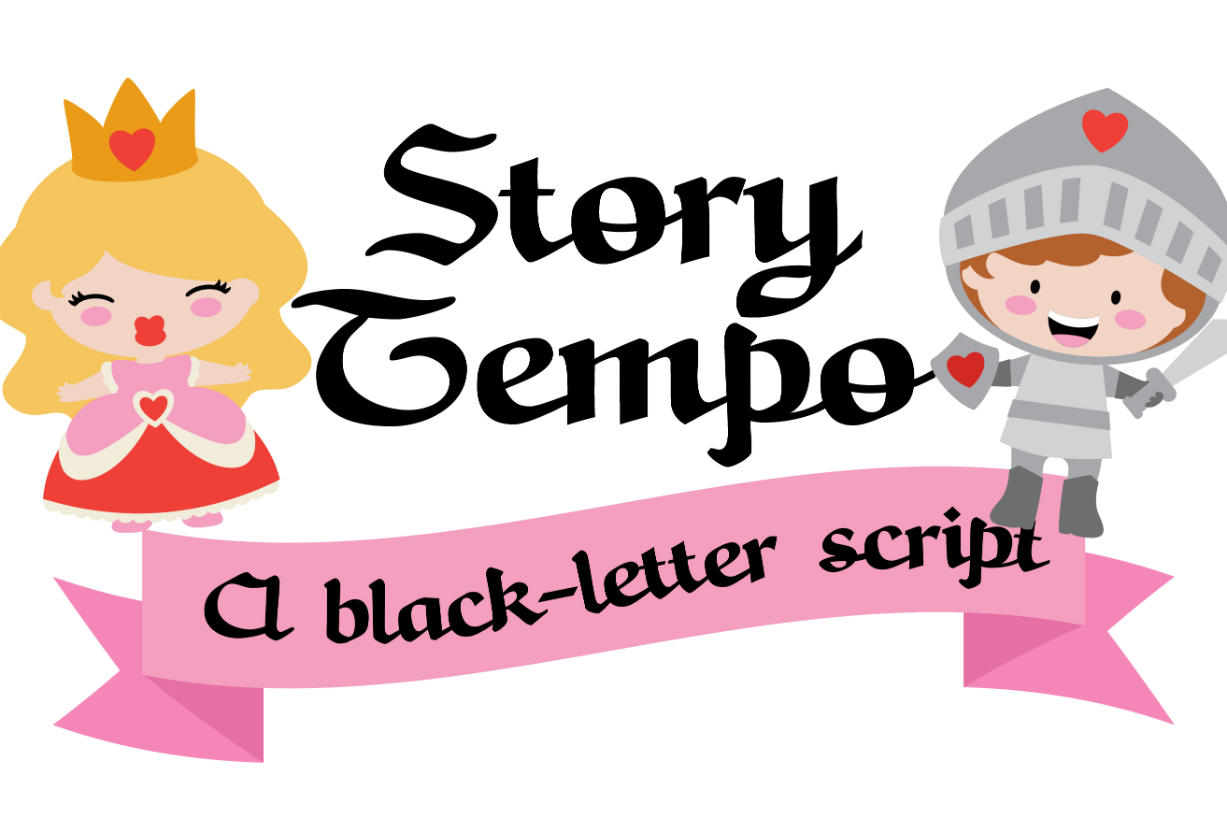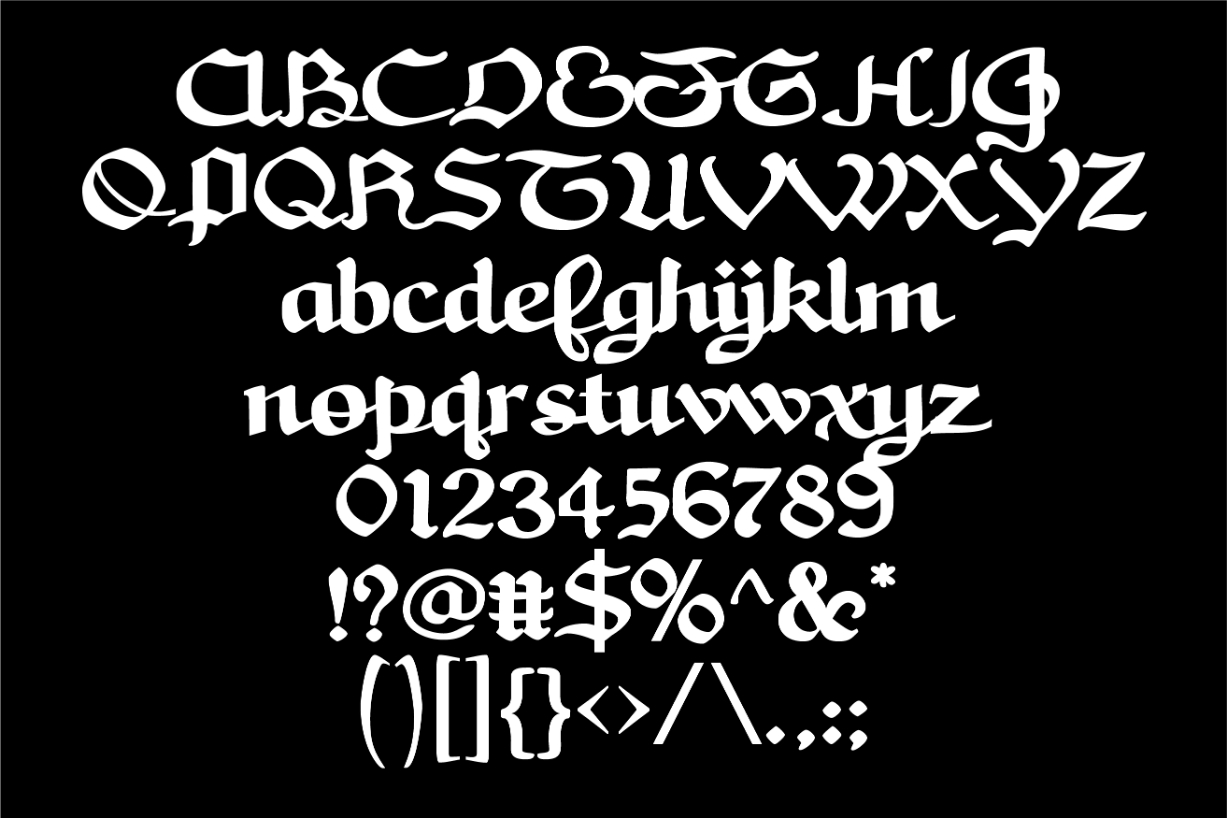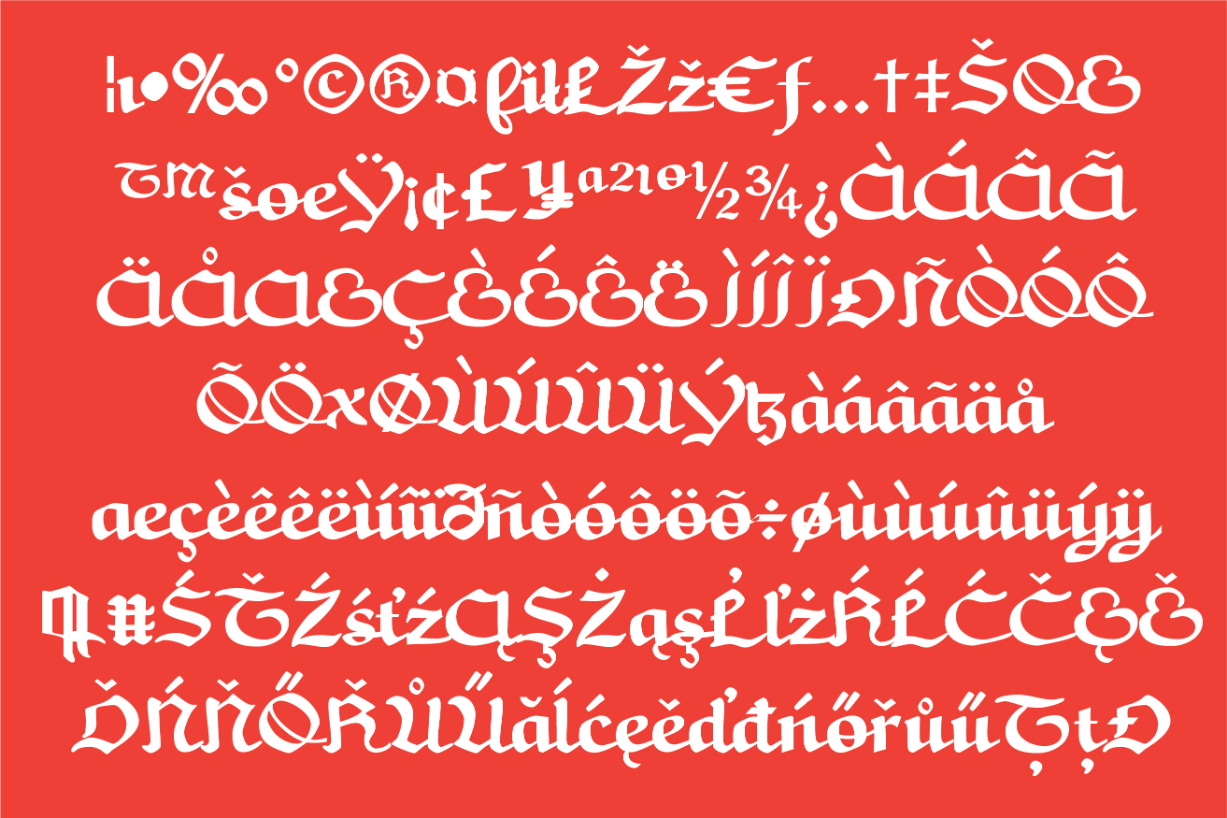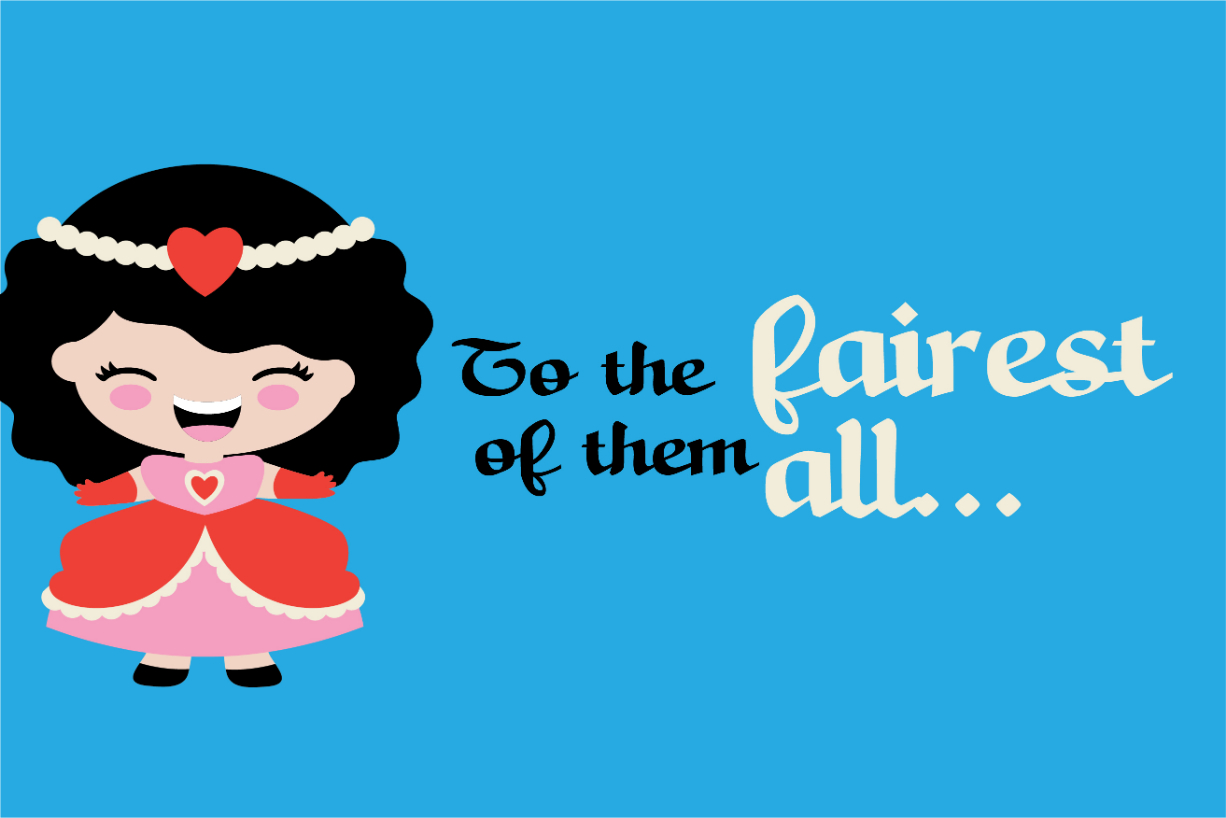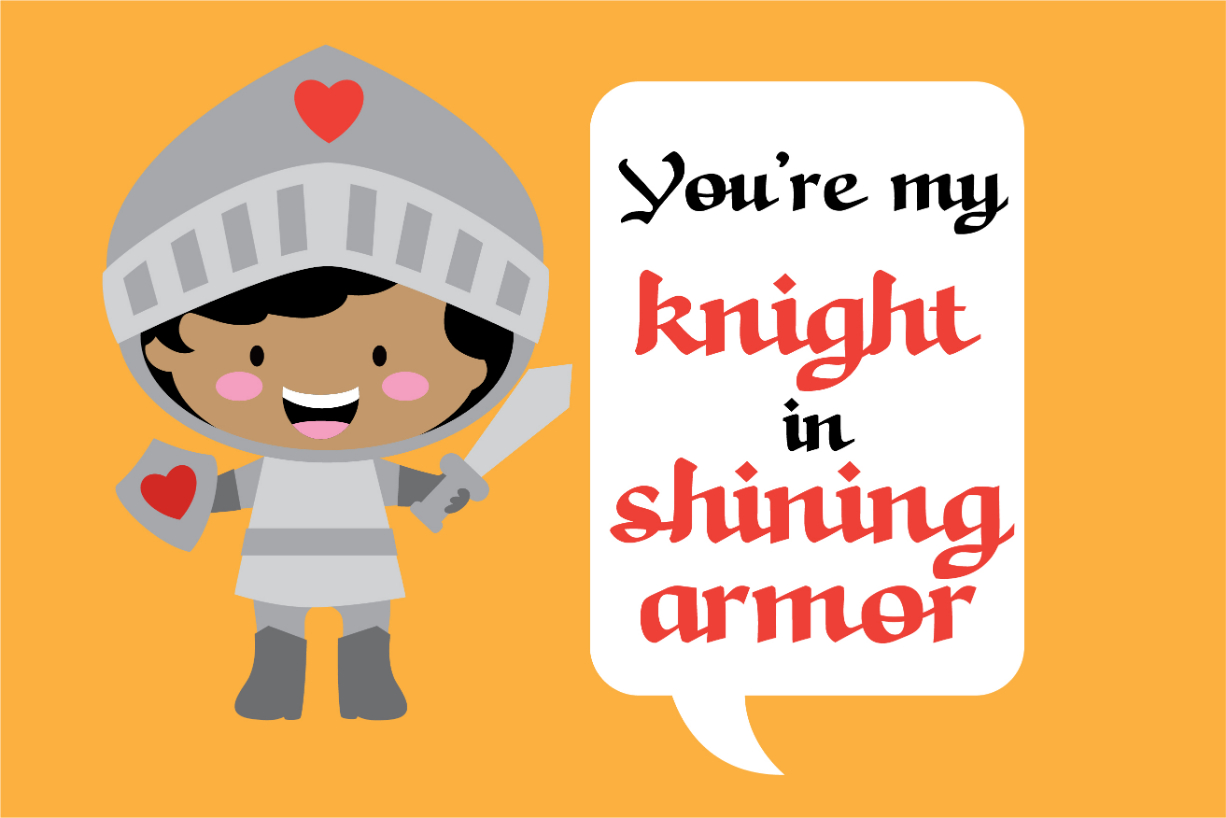
HomeBlackletter FontsStory Tempo Font Blackletter Fonts Story Tempo Font FacebookXPinterestWhatsApp 1 of 7 Story Tempo Font Poster 2... Story Tempo Font Poster 3... Story Tempo Font Poster 4... Story Tempo Font Poster 5... Story Tempo Font Poster 6... Story Tempo Font Poster 7... About Story Tempo Font This hand-crafted, black-letter font has a formal feel but comes with a whimsical charm! DOWNLOAD NOW People also explored Selfoodie Font Liberole Font Cute Baby Font Jellya Script Font Katherin Font Chocolate Drink Font Radenes Font Simplle Font Atradimas Font 449 0 TagsStory Tempo Font Previous articleOmerta FontNext articleJosy Wine Font LEAVE A REPLY Cancel reply Comment: Please enter your comment! Name:* Please enter your name here Email:* You have entered an incorrect email address! Please enter your email address here Website: Save my name, email, and website in this browser for the next time I comment. Personal Use Free Short Message Personal Use Free Read more about this font Good Timing – Bold Personal Use Free Read more about this font Love Baby Personal Use Free Read more about this font Banana Valentine Personal Use Free Read more about this font BLOG How to Cut Any Font on Cricut: Convert a Font to SVG (Free) Turn any font into a clean SVG so it cuts crisp on Cricut - a quick 3-step workflow using a free font-to-SVG tool. How to Install and Use Fonts on Windows, macOS, and Web Projects Best Fonts for T-Shirt Design – Top 2025 Picks Top 10 Handwritten Fonts That Elevate Your Designs